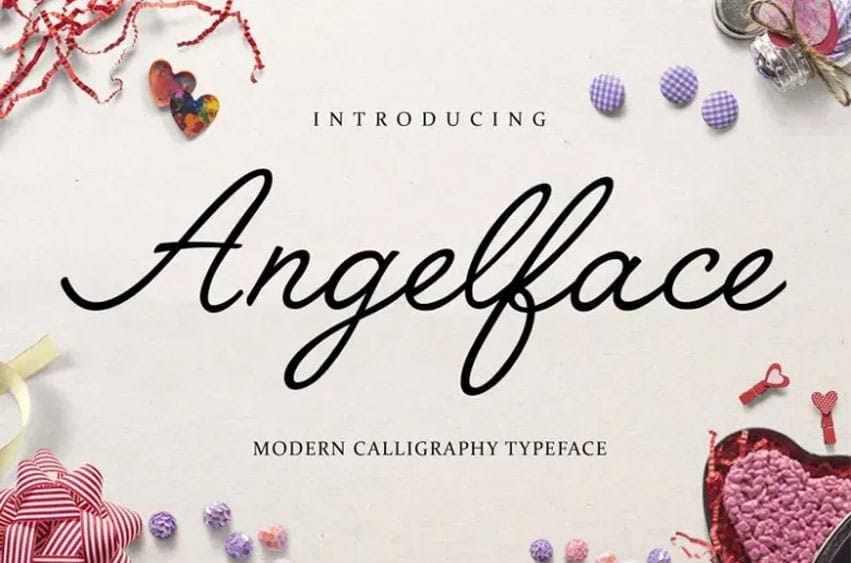
Angelface Font is a new fresh & modern script with a sweet calligraphy-style. Angelface was designed and shares by Mario Arturo. He did not design this font completely, is loosely based on Lariata Typecafe.
Traced from the 1993 edition of Novum Press book Schreibschriften/Script Types, compiled by Michael Rau & Rosemarie Kloos-Rau. He did add the punctuation marks for the book only had letters and numbers.